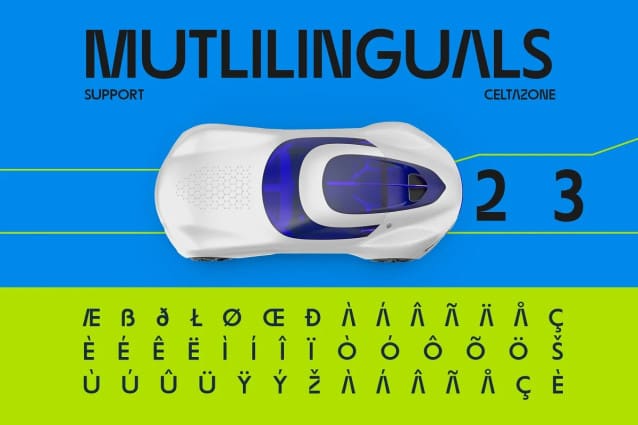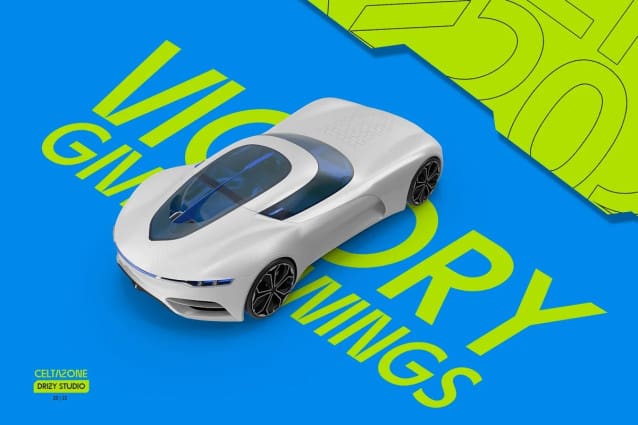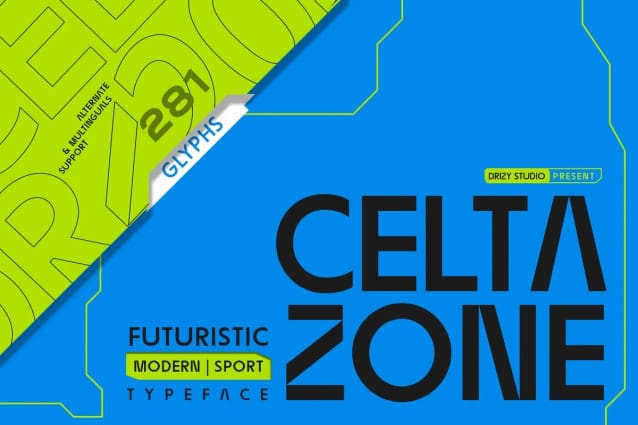
Celtazone Font
Celtazone Font is not just a sport; it’s a window into a dynamic, futuristic world where athleticism, technology, and imagination collide. This cutting-edge sport combines the agility of traditional athletics with the power of science fiction, creating a thrilling, otherworldly experience that captivates both participants and spectators.
Celtazone features: Character Set Punctuation & Numbers Multilingual Support Alternate